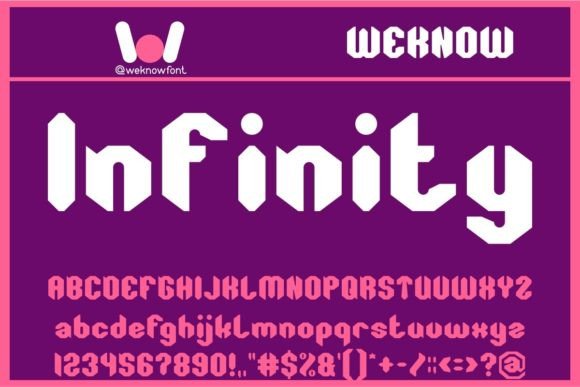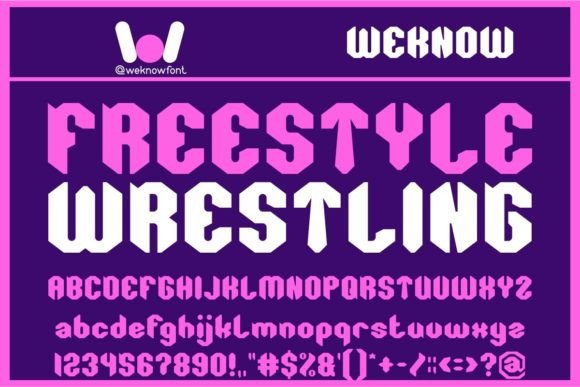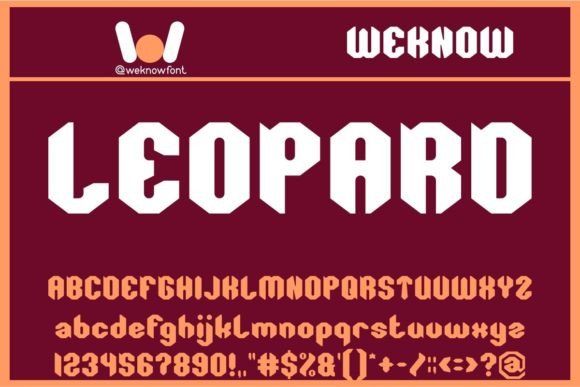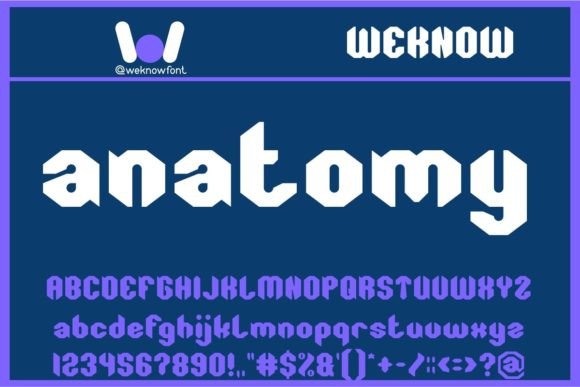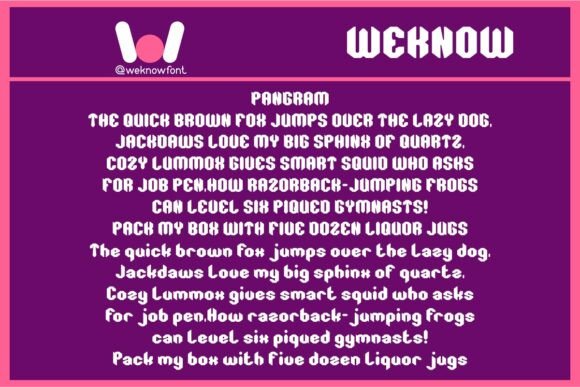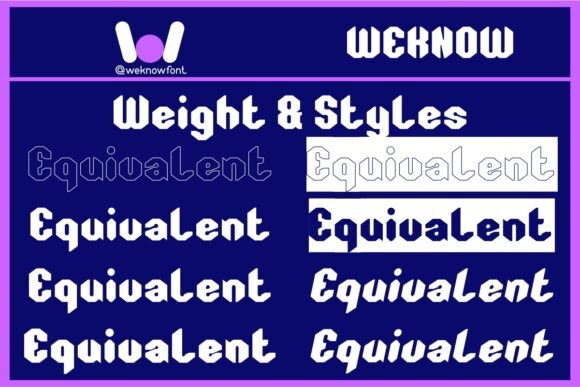
Introducing Equivalent Font: The Ultimate Techno-Inspired Display Font
Are you tired of using the same old fonts in your designs? Look no further! Equivalent Font is here to revolutionize your creative projects with its modern, techno-inspired style. This fresh and contemporary display font is perfect for designers and crafters who want to add a touch of innovation to their work.
What is Equivalent Font?
Equivalent Font is a cool, modern sans-serif font that is specifically designed to make a statement. Its sleek lines, geometric shapes, and futuristic feel make it perfect for a wide range of design applications, from posters and flyers to logos, branding, and packaging.
Key Features of Equivalent Font
- Modern and Fresh Design: Equivalent Font boasts a clean and contemporary design that is sure to grab attention.
- Techno-Inspired Style: The font’s geometric shapes and sleek lines give it a futuristic feel that’s perfect for tech-related designs.
- Highly Versatile: Equivalent Font can be used for a wide range of design applications, from display text to logos and branding.
- Easy to Read: Despite its modern design, Equivalent Font is highly legible, making it perfect for use in body text as well as display text.
Why Choose Equivalent Font?
- Stand Out from the Crowd: Equivalent Font is a unique and distinctive font that will help your designs stand out from the crowd.
- Perfect for Creative Projects: Whether you’re working on a personal project or a client’s brief, Equivalent Font is the perfect choice for adding a touch of creativity and innovation.
How to Use Equivalent Font
- Use it as a Display Font: Equivalent Font is perfect for use as a display font, making it ideal for headlines, titles, and other prominent text.
- Experiment with Different Sizes: Equivalent Font looks great in a variety of sizes, from large display text to smaller body text.
- Pair it with Other Fonts: Equivalent Font pairs well with a range of other fonts, making it easy to create visually appealing combinations.
- Use it to Create a Futuristic Look: Equivalent Font is perfect for creating a futuristic or techno-inspired look, making it ideal for designs that require a cutting-edge feel.
- Add a Personal Touch: Use Equivalent Font to add a personal touch to your designs, making them more unique and eye-catching.
- Experiment with Colors and Textures: Equivalent Font looks great in a range of colors and textures, so don’t be afraid to experiment and find the perfect combination for your design.
In conclusion, Equivalent Font is a modern, techno-inspired display font that is perfect for designers and crafters who want to add a touch of innovation to their work. With its sleek lines, geometric shapes, and futuristic feel, it’s the perfect choice for a wide range of design applications. So why wait? Download Equivalent Font today and start creating outstanding designs that will leave a lasting impression!